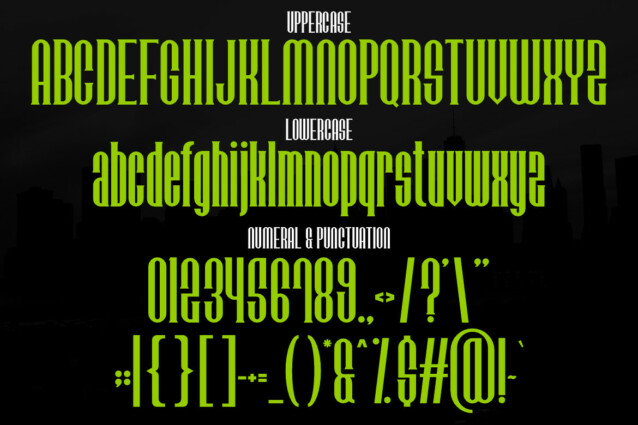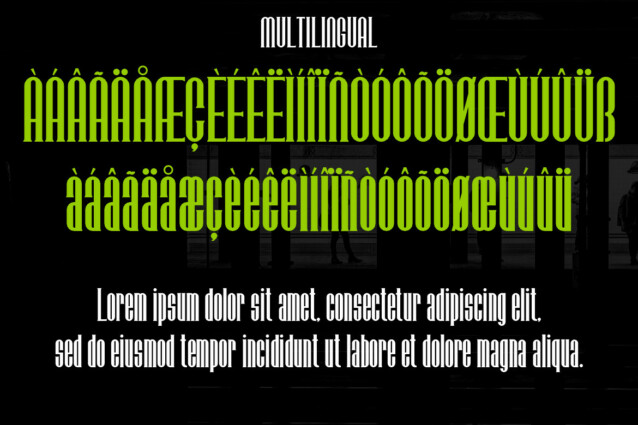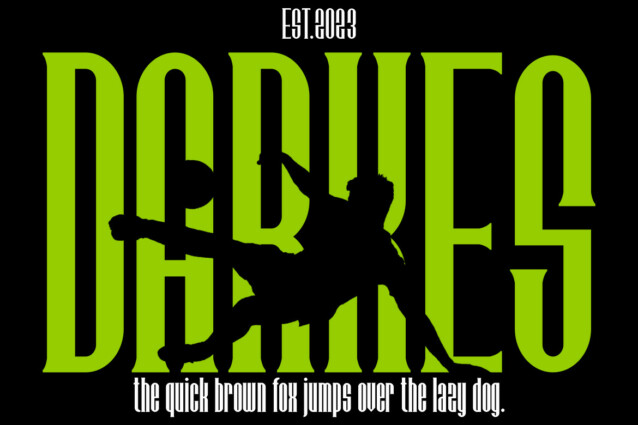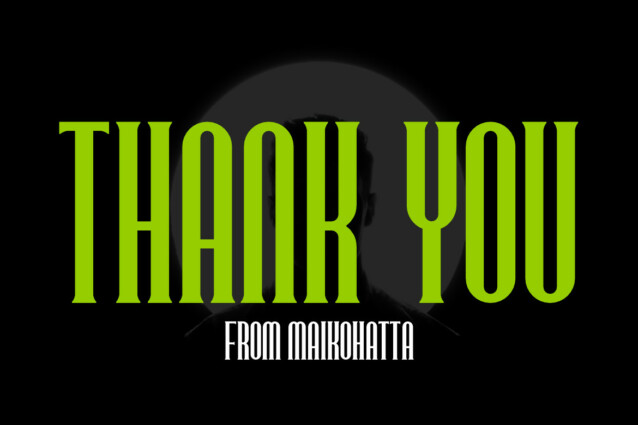
Darkes Font
Darkes Font is a type of font that is characterized by narrower or slimmer letterforms compared to regular or wide fonts. Condensed fonts are often used in various graphic designs, print materials, and other media because they have distinct advantages and unique characteristics